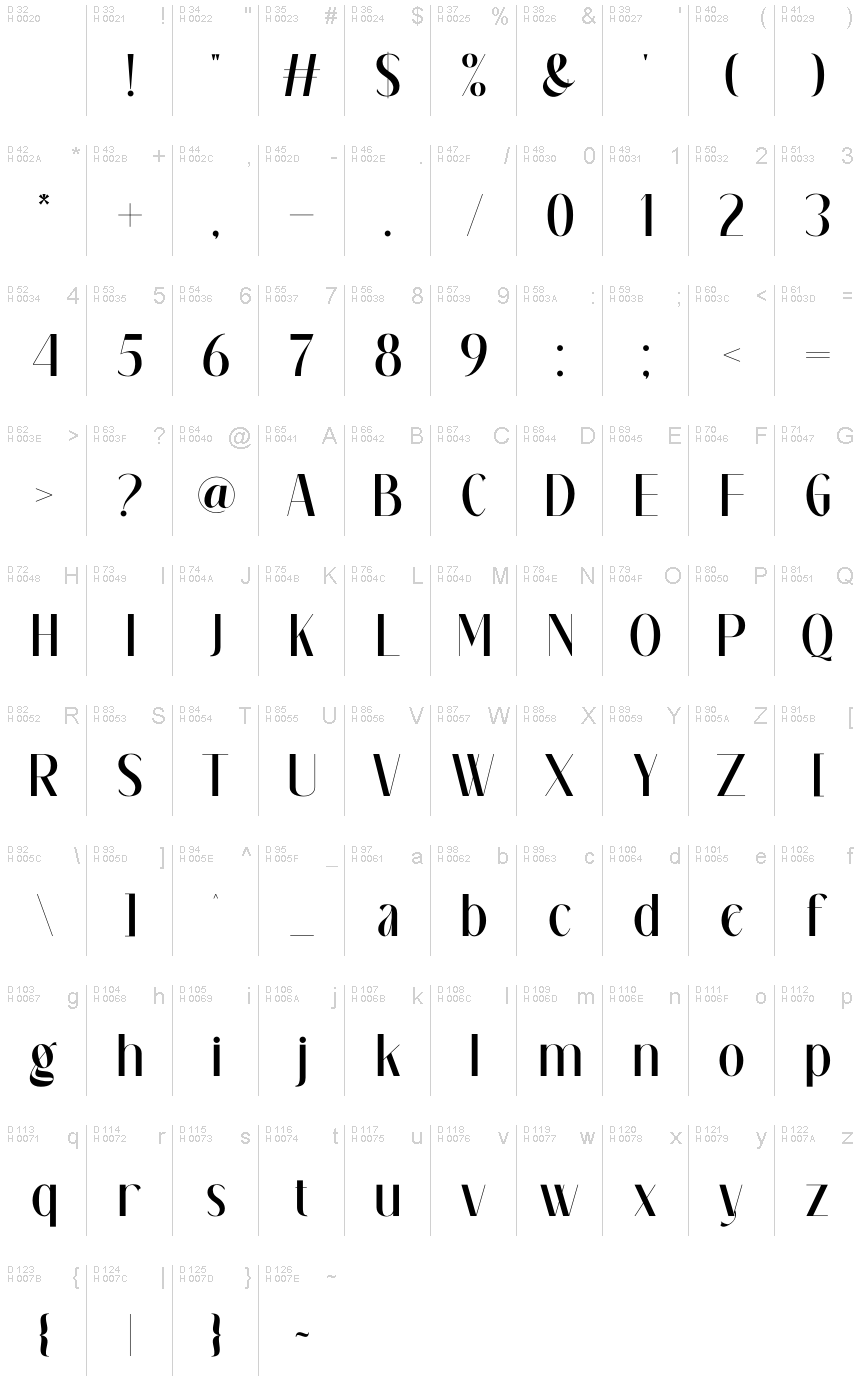
Banegsa
Banegsa, crafted by Rvandtype, is a striking sans serif font that demands attention with its bold and condensed design. This font exudes a modern yet timeless appeal, merging sharp lines with smooth curves to create an eye-catching contrast. Its distinctive letterforms are both elegant and assertive, making it perfect for headlines, logos, and branding projects that require a touch of sophistication and boldness.
The unique characteristics of Banegsa's condensed width make it ideal for creating impactful text in limited space without compromising readability. Whether you're designing sleek advertisements or minimalist editorial layouts, Banegsa adds a refined edge to any project. Its versatility ensures it stands out in various design contexts, from digital interfaces to print media.